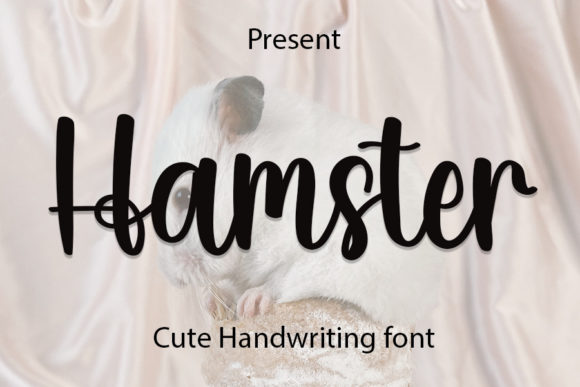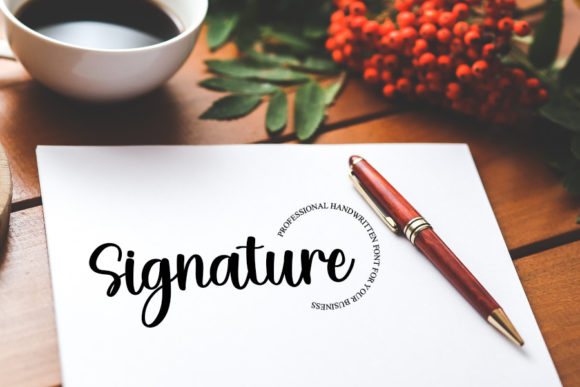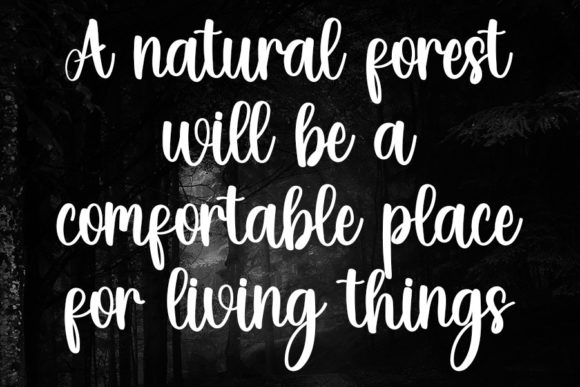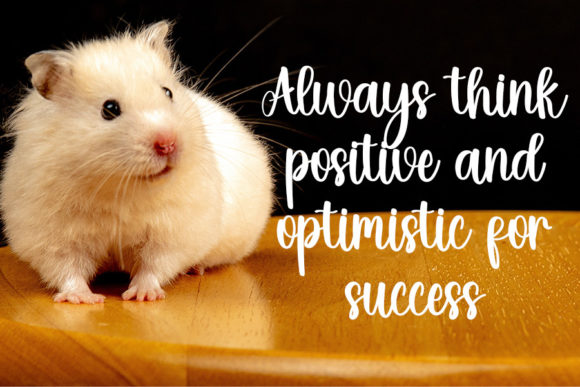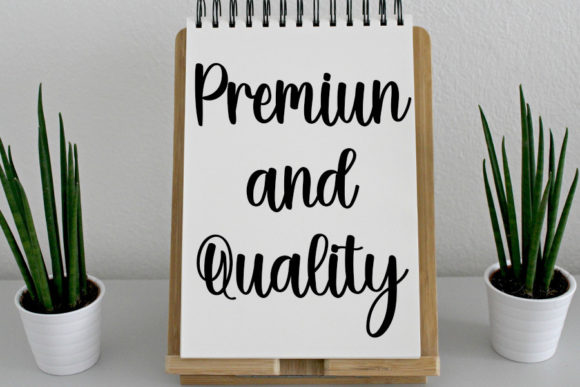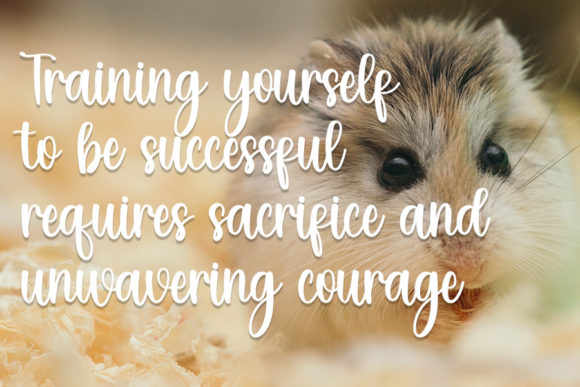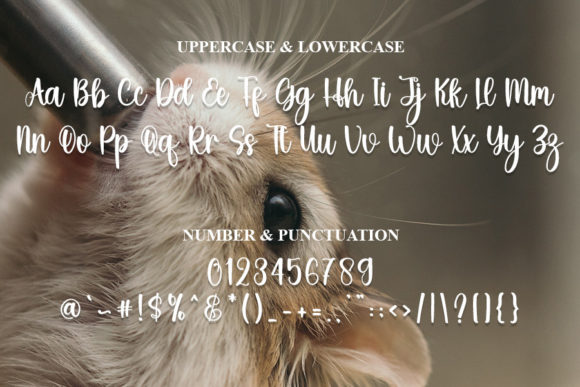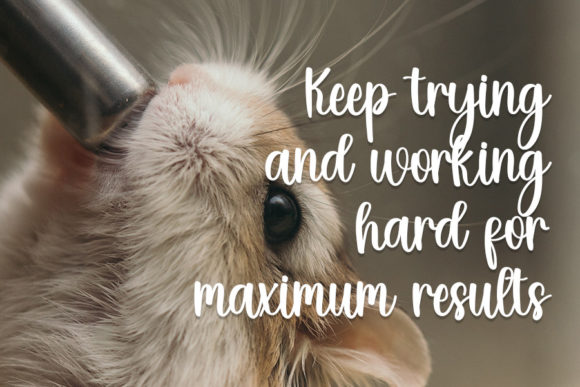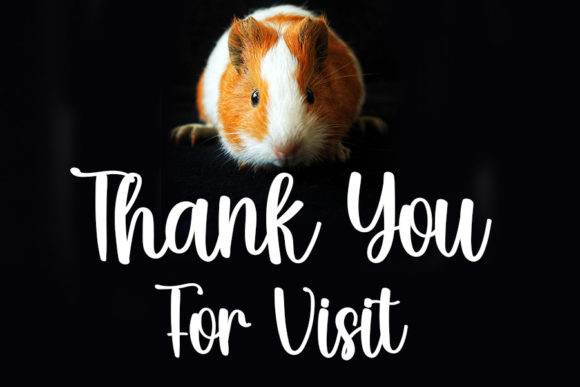
Hamster Font
About Hamster Font
**Hamster Font: Stylish Handwritten Sophistication**
Meet *Hamster Font*, a stylish handwritten typeface that exudes a contemporary atmosphere and impeccable form, drawing inspiration from timeless classic calligraphy. This balanced and varied font is thoughtfully designed to elevate the beauty of your creative projects.
The allure of *Hamster* lies in its seamless fusion of style with handwritten sophistication. Crafted with precision, each stroke contributes to a visual experience that transcends conventional lettering. The font’s design versatility makes it well-suited for a diverse range of applications, adding a touch of refinement to your projects.
Whether you’re working on branding materials, invitations, social media graphics, or any other creative endeavor, *Hamster* adapts with grace. Its contemporary ambiance and well-balanced form position it as an excellent choice, allowing your designs to shine with timeless appeal.
Consider *Hamster Font* as a refined tool that empowers you to infuse sophistication into your designs. Each letter is a brushstroke that enhances the overall aesthetic, transforming your projects into captivating works of art.
In summary, *Hamster Font* is more than just a typeface; it’s an invitation to elevate your designs with stylish handwritten sophistication. Embrace its balanced and varied form, letting it be the key element that enhances the beauty of your creative ventures.